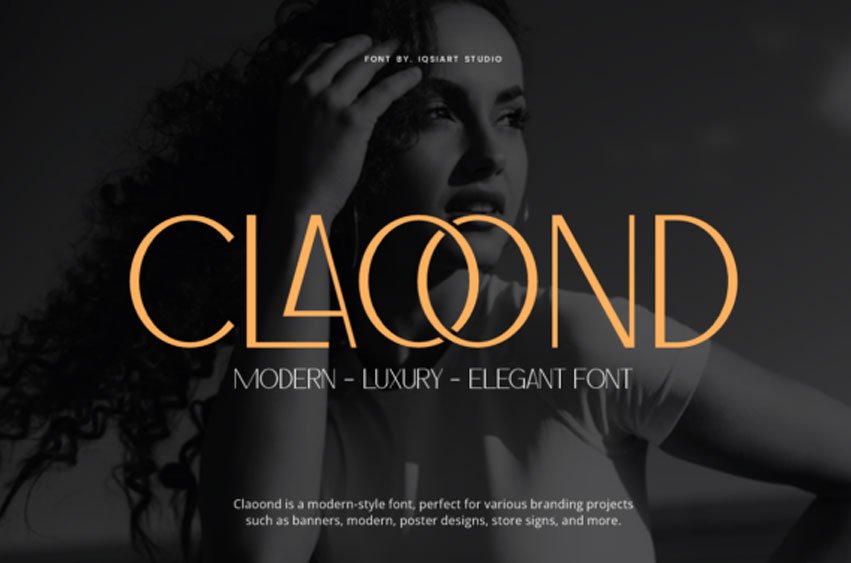
Claoond Font Add a touch of contemporary sophistication to your designs with Claoond, a high-end luxury display font that defines modern elegance.
This Claoond typeface is characterized by its slender, geometric lines and unique interlocking characters—most notably the graceful circular “O” that nests perfectly within adjacent letters—creating a rhythmic and artistic visual flow. It is the premier choice for editorial magazine layouts, high-fashion branding, and upscale storefront signage that requires a clean yet distinctive typographic presence.
The Claoond font is designed to excel in minimalist environments, where its creative ligatures can serve as the primary focal point of the composition. This Claoond typeface pairs exceptionally well with high-contrast photography and muted color palettes to achieve an editorial, “quiet luxury” aesthetic.
Use it for cinematic titles, elegant wedding invitations, or professional portfolios to convey a sense of grace and precision. Whether you are designing for a luxury skincare brand or a modern architectural firm, this typeface provides a timeless blend of style and clarity.